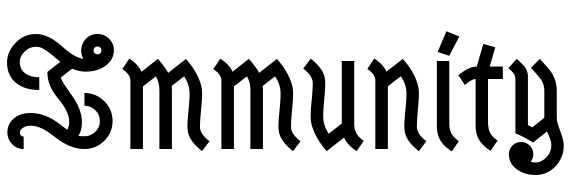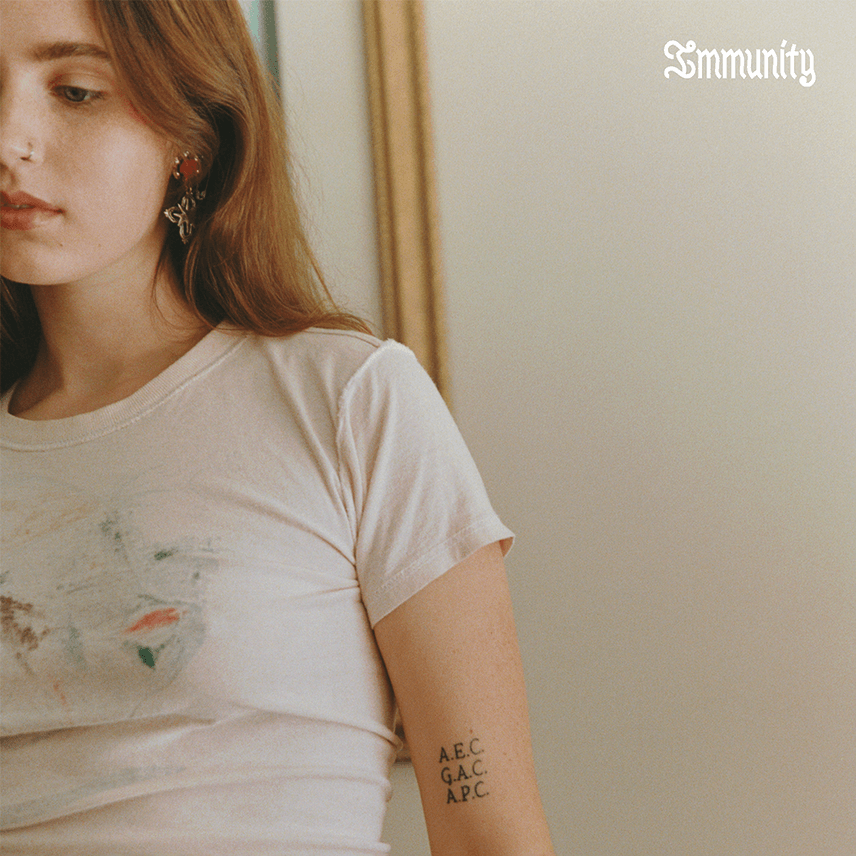
Immunity (Clairo) Font
Fonts in UseImmunity is the debut studio album by American singer-songwriter Clairo, released in 2019. The album features 11 tracks that blend dream pop, indie pop, and bedroom pop.